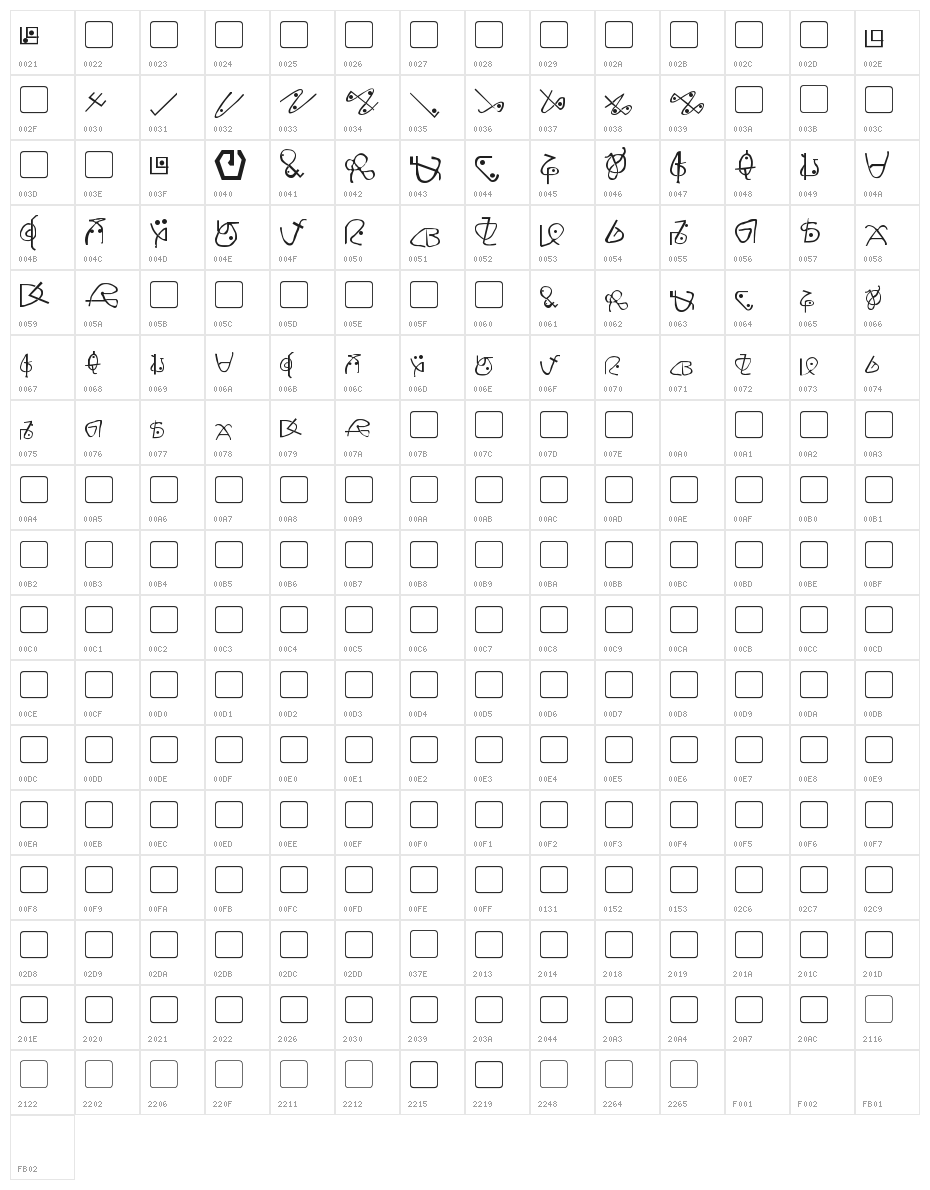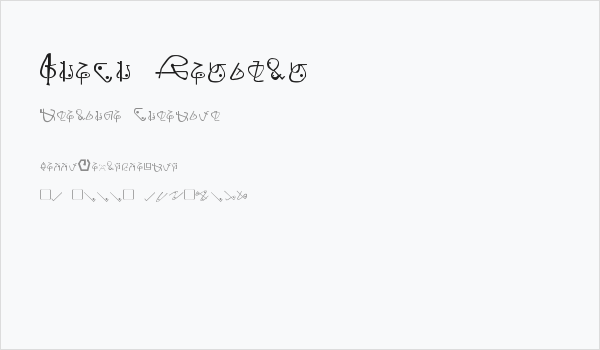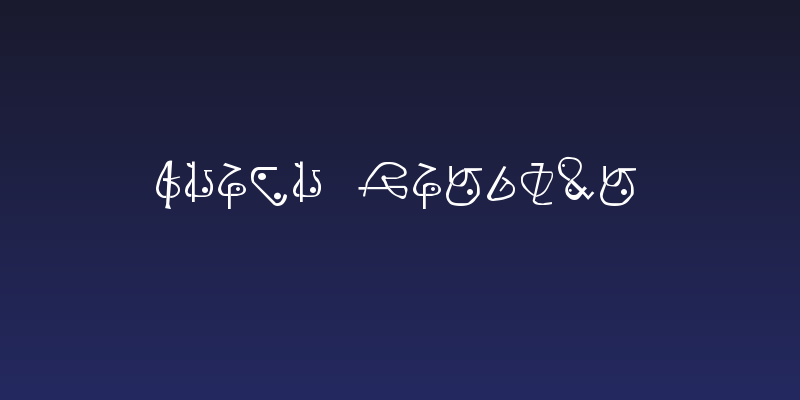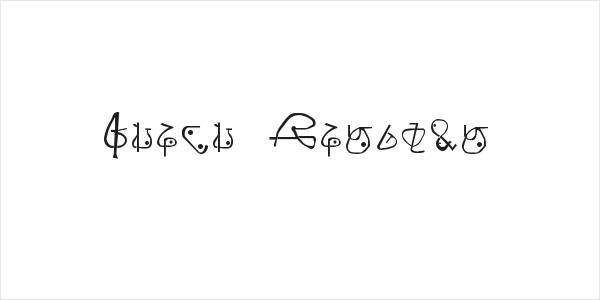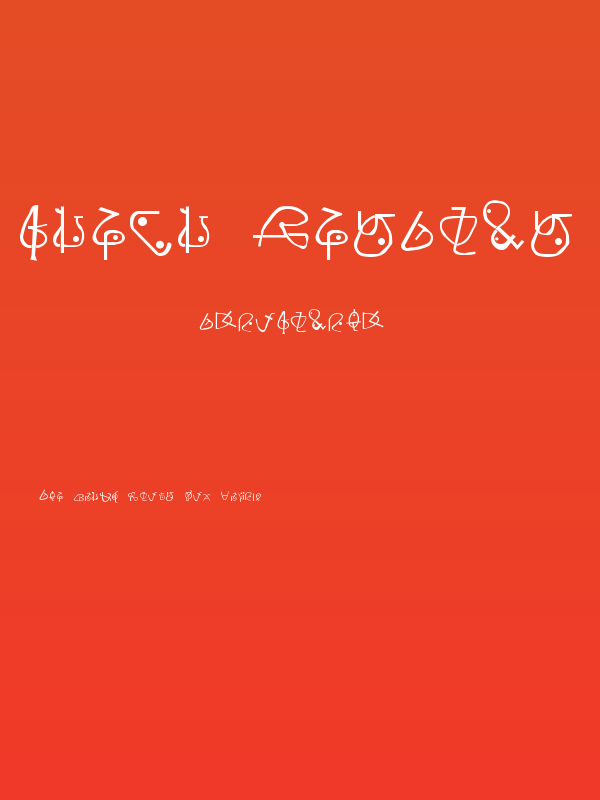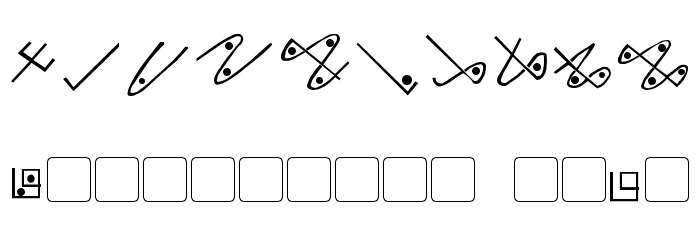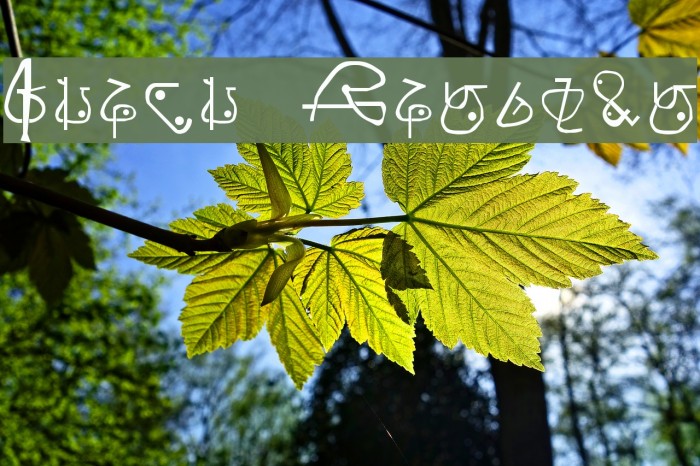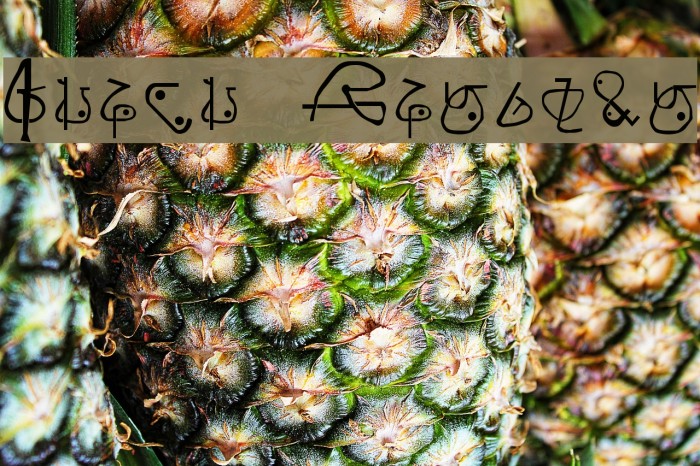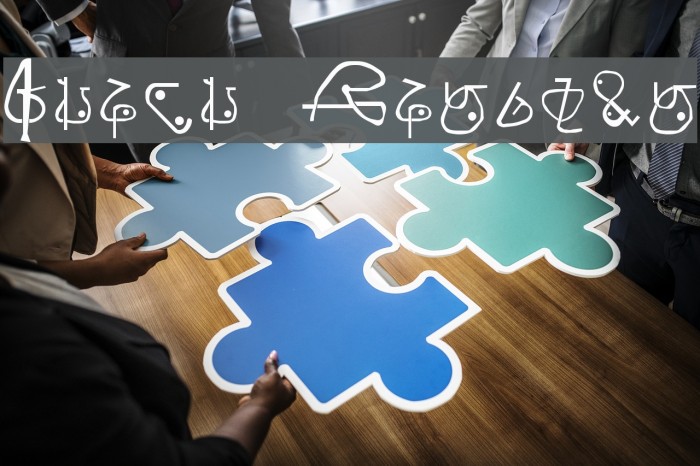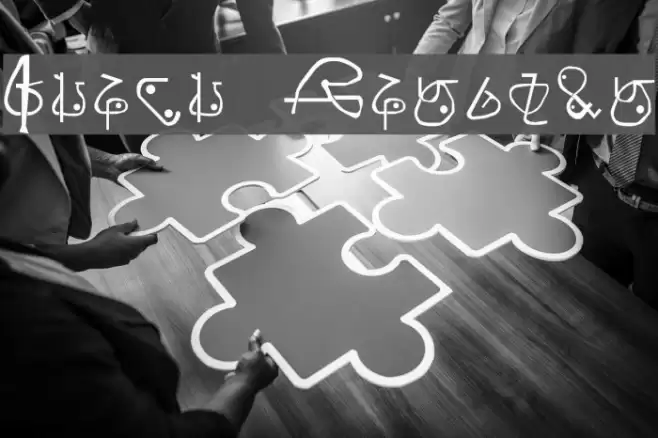
Giedi Zentran Font
Giedi Zentran Description
This font features a highly decorative and abstract style, characterized by intricate loops and curves that form each letter. The design is reminiscent of ancient scripts or alien languages, with a futuristic twist. Each character is unique, with varying line thicknesses and unexpected angles, creating a sense of mystery and complexity. The font's artistic flair makes it suitable for creative projects that require a distinctive and unconventional look. Its elaborate design may not be suitable for body text but can make a striking impact in headlines or logos.
| Overall Style | Futuristic, Artistic |
| Use Case | Headlines, Logos, Creative projects |
| Proposed Projects | Ideal for use in science fiction themed designs, fantasy book covers, video game graphics, or any project requiring a unique and artistic typeface. |